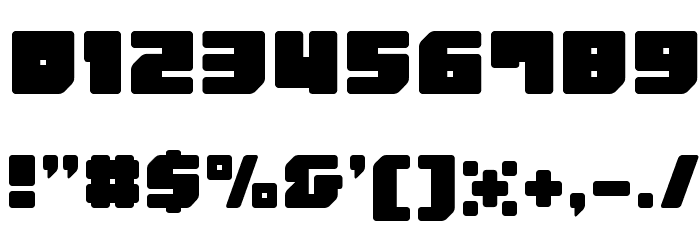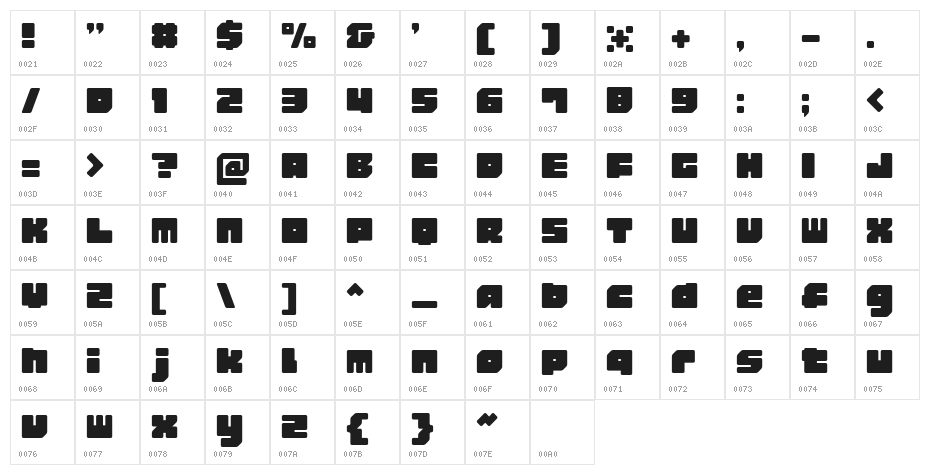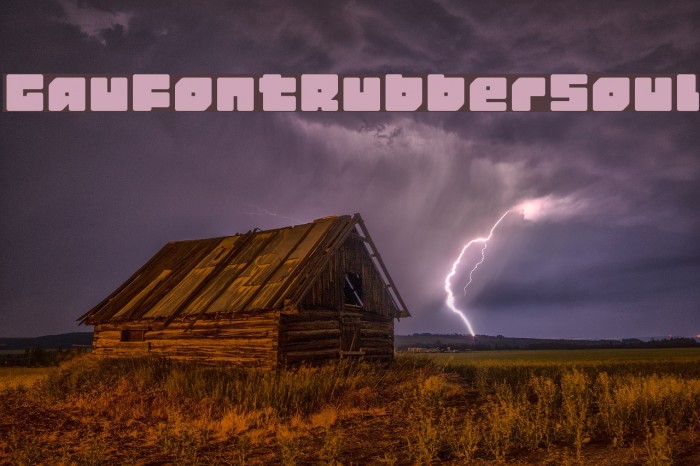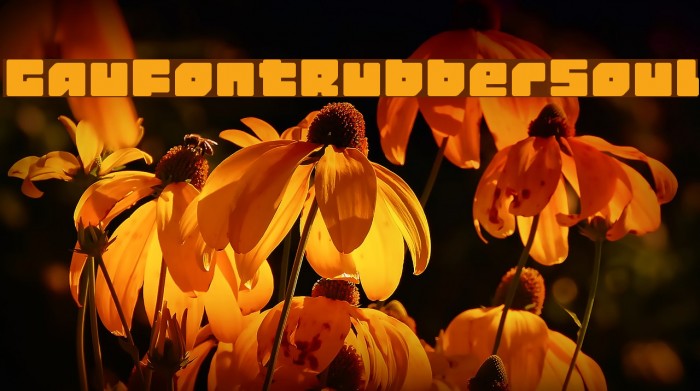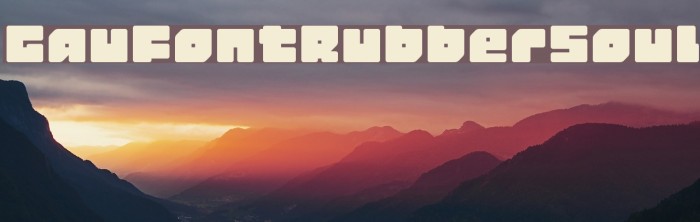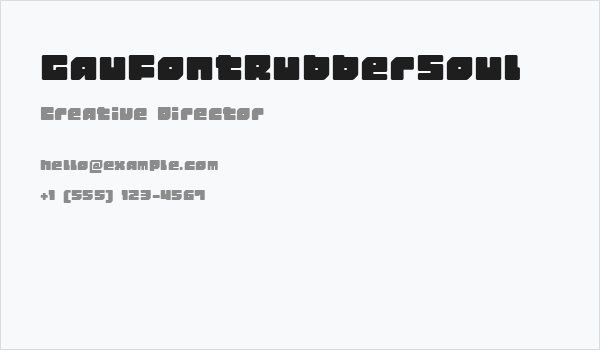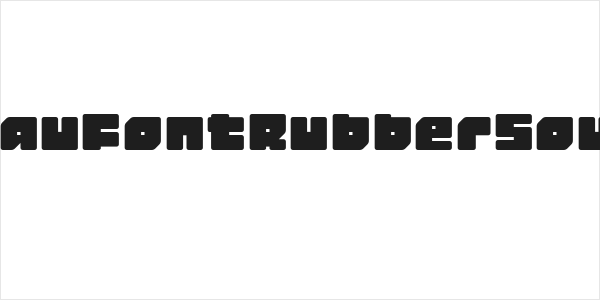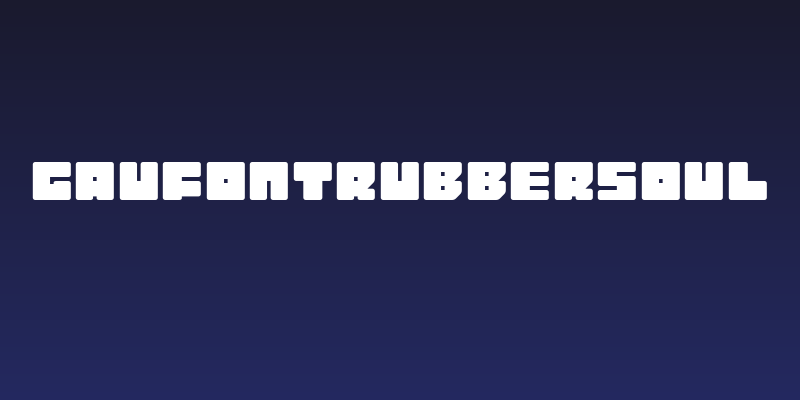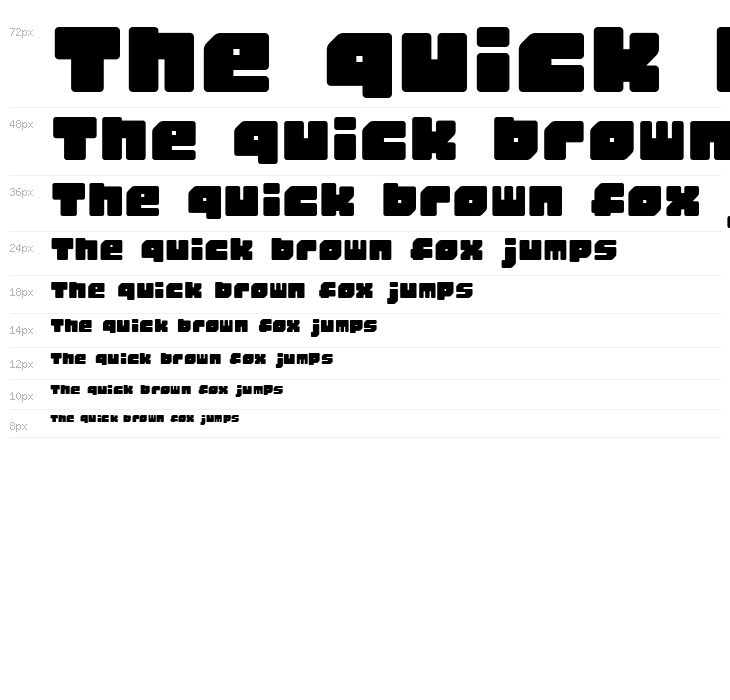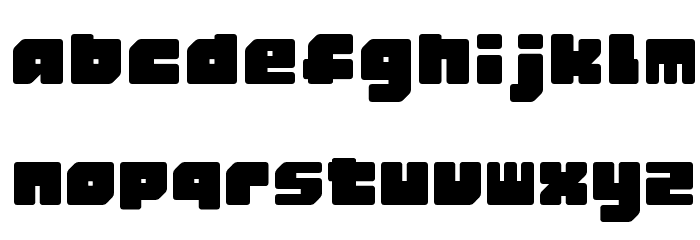
GauFontRubberSoul Font
GauFontRubberSoul Description
This font features a bold and playful design with thick, rounded edges and a distinctly retro vibe. The characters are uniformly wide, giving it a chunky and robust appearance. The uppercase and lowercase letters maintain a consistent style, with minimal variation in stroke width, contributing to its bold and impactful look. The numbers and special characters follow the same design principles, ensuring a cohesive visual identity across all elements. This font's unique style makes it stand out, ideal for projects that require a touch of nostalgia and boldness.